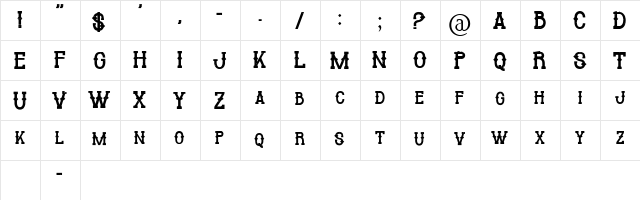
Cowboy Cadaver Regular
| Foundry | Font Monger |
| Designer | Chris Vile |
Design Context for Cowboy Cadaver Typeface
Cowboy Cadaver taps into classic Western woodtype traditions — bold, characterful, and impossible to ignore.
Perfect for barbecue restaurants, country music branding, vintage poster design, and rustic packaging.
Font Pairing: Combine Cowboy Cadaver with a simple slab or neutral sans — period-accurate companions reinforce the vintage feel without competing for attention.
Pro Tip: Pair Cowboy Cadaver with aged textures or distressed backgrounds to amplify its vintage personality.